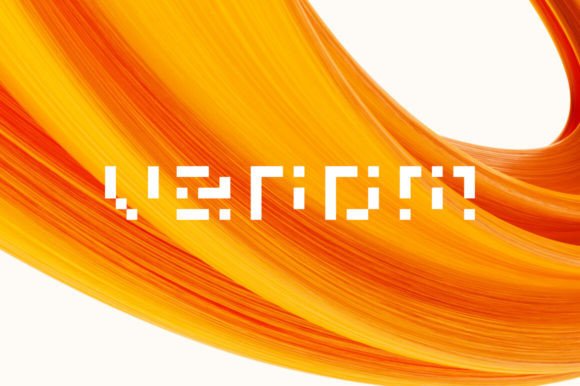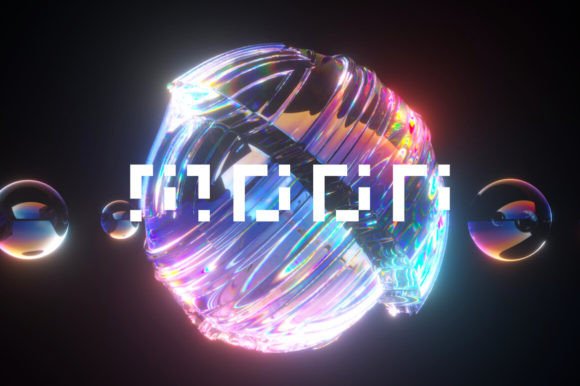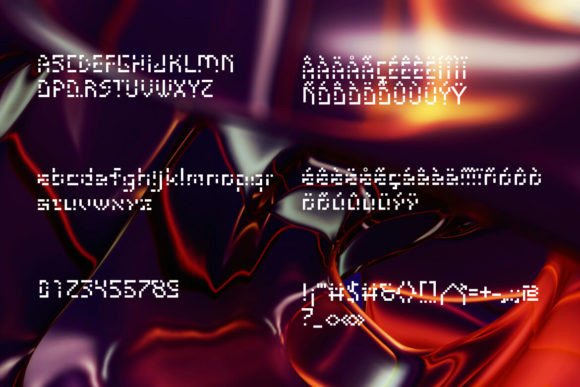
Groutpix Font: The Revolutionary Typeface that Harmonizes Design and Technology
In the ever-evolving world of design, innovation and creativity are the keys to standing out in a crowded digital landscape. For designers and crafters, the quest for the perfect font is a never-ending journey. That’s where Groutpix Font comes in – a game-changing typeface that speaks the language of innovation and beats to the rhythm of creativity. In this article, we’ll explore the exciting world of Groutpix Font and how it’s poised to revolutionize the design industry.
The Birth of Groutpix Font
Groutpix Font is more than just a font – it’s a symphony of pixels and sound waves. Imagine a world where every character is a pixelated note, and the rhythm of technology meets the harmony of art. Groutpix Font is the brainchild of visionary designers who sought to push the boundaries of typography and design. By fusing pixels and sound waves, they’ve created a font that’s not just visually stunning but also sonically captivating.
The Language of Innovation
Groutpix Font is designed to speak the language of innovation, making it the perfect choice for designers who want to elevate their designs and amplify their visuals. With its unique pixelated aesthetic, Groutpix Font adds a touch of futurism to any design project. Whether you’re working on a logo, a website, or a print project, Groutpix Font is sure to make your design stand out in a crowded digital landscape.
The Rhythm of Creativity
Creativity is at the heart of every design project, and Groutpix Font is designed to inspire your creative side. With its bold and futuristic aesthetic, Groutpix Font encourages designers to think outside the box and experiment with new ideas. Whether you’re a seasoned designer or a crafty DIY enthusiast, Groutpix Font is the perfect tool to help you express your creativity and bring your design vision to life.
The Future of Design
Groutpix Font represents the future of design, where pixels become the building blocks of sonic landscapes. This revolutionary font is not just a design element – it’s an experience. With Groutpix Font, designers can create immersive and engaging designs that captivate audiences and leave a lasting impression. Whether you’re designing for print, web, or mobile, Groutpix Font is the perfect choice for designers who want to stay ahead of the curve.
Embracing the Techno Revolution
The techno revolution is here, and Groutpix Font is at the forefront of this design movement. By embracing the fusion of technology and art, designers can create stunning designs that are both visually and sonically captivating. With Groutpix Font, the possibilities are endless – from creating futuristic logos and branding materials to designing immersive digital experiences that engage and inspire.
Elevate Your Designs with Groutpix Font
Ready to elevate your designs and amplify your visuals? Groutpix Font is the perfect choice for designers who want to take their design game to the next level. With its unique pixelated aesthetic and sonically captivating rhythm, Groutpix Font is sure to add a touch of innovation and creativity to any design project. So why wait? Download Groutpix Font today and join the techno revolution!
Key Features of Groutpix Font
- Unique Pixelated Aesthetic: Groutpix Font features a unique pixelated aesthetic that’s both visually stunning and sonically captivating.
- Sonically Captivating Rhythm: Every character in Groutpix Font is designed to create a sonically captivating rhythm that’s sure to engage and inspire.
- Futuristic Design: Groutpix Font is designed to represent the future of design, making it the perfect choice for designers who want to stay ahead of the curve.
- Multipurpose: Groutpix Font is perfect for a wide range of design projects, from logos and branding materials to digital experiences and print projects.
| Font Name | Groutpix Font |
Groutpix Font is more than just a font – it’s a design movement. With its unique pixelated aesthetic and sonically captivating rhythm, Groutpix Font is poised to revolutionize the design industry. Whether you’re a seasoned designer or a crafty DIY enthusiast, Groutpix Font is the perfect tool to help you express your creativity and bring your design vision to life. So why wait? Embrace the future of design and let the techno revolution begin!